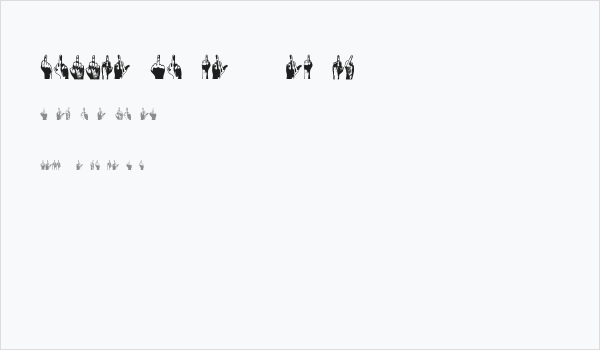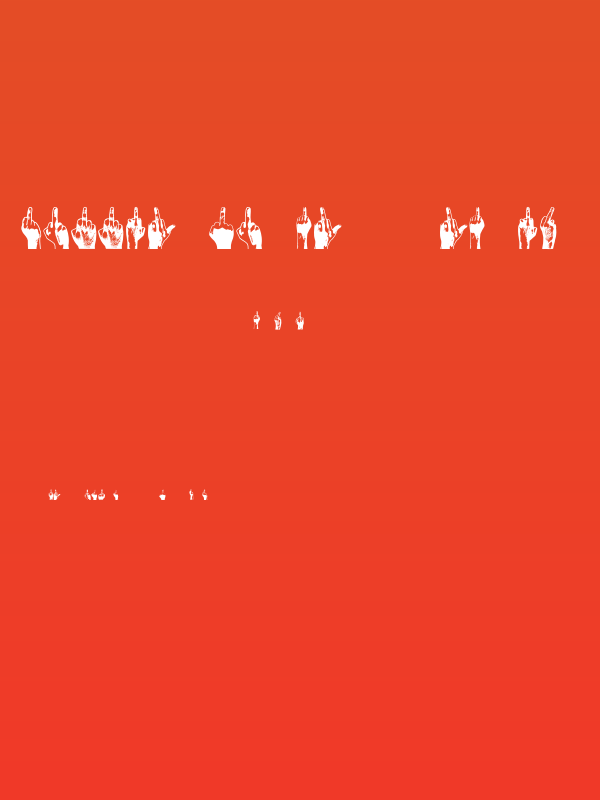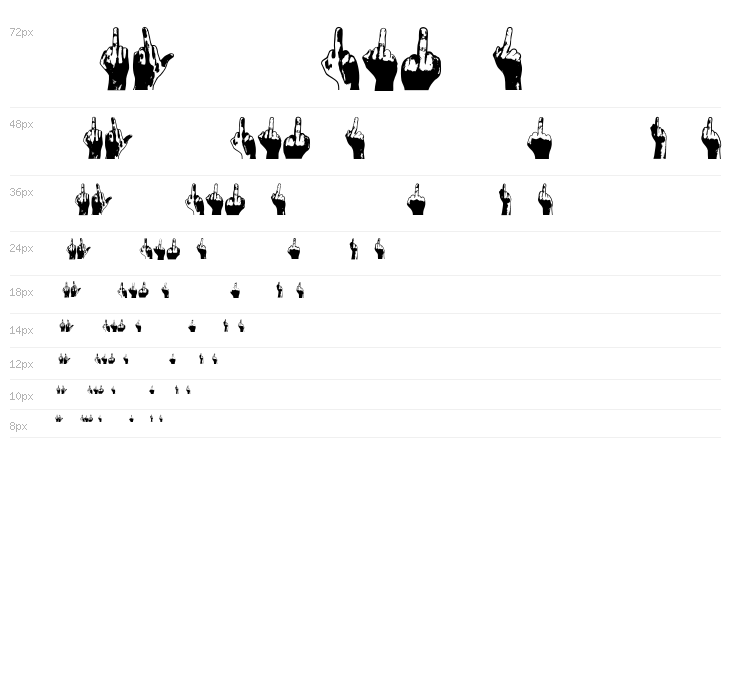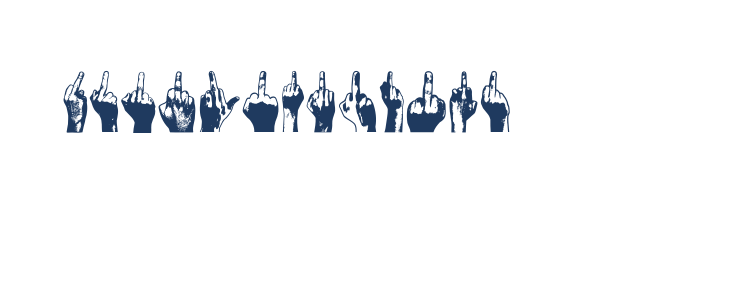
Middle Finger Regular Font
Middle Finger Regular Description
A highly unconventional and provocative display font composed entirely of illustrated hands making an obscene gesture, with each character represented by a different hand pose. The style is bold, high-contrast, and graphic, using solid black and white for maximum visual impact.
| Overall Style | Decorative, Provocative, Graphic |
| Use Case | Display, Posters, Art projects, Satirical content |
| Proposed Projects | Satirical posters, protest art, underground zines, rebellious branding, or shock-value event flyers. |